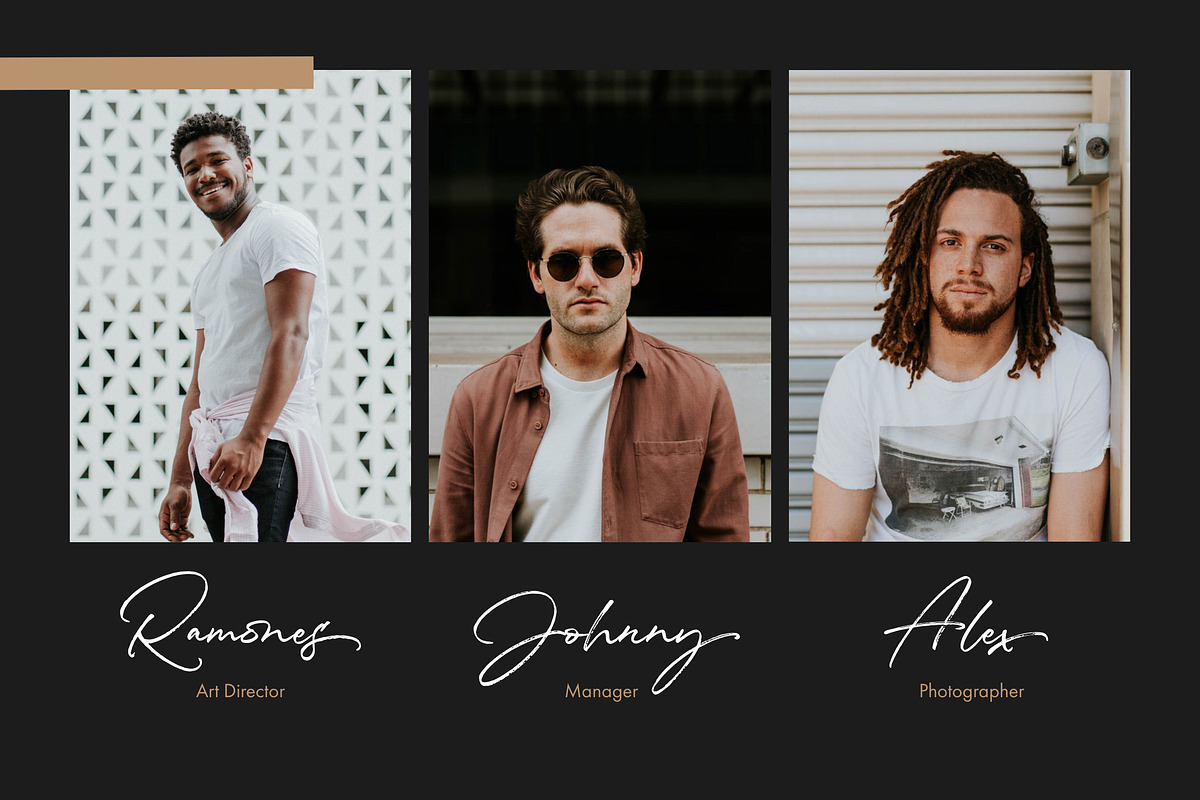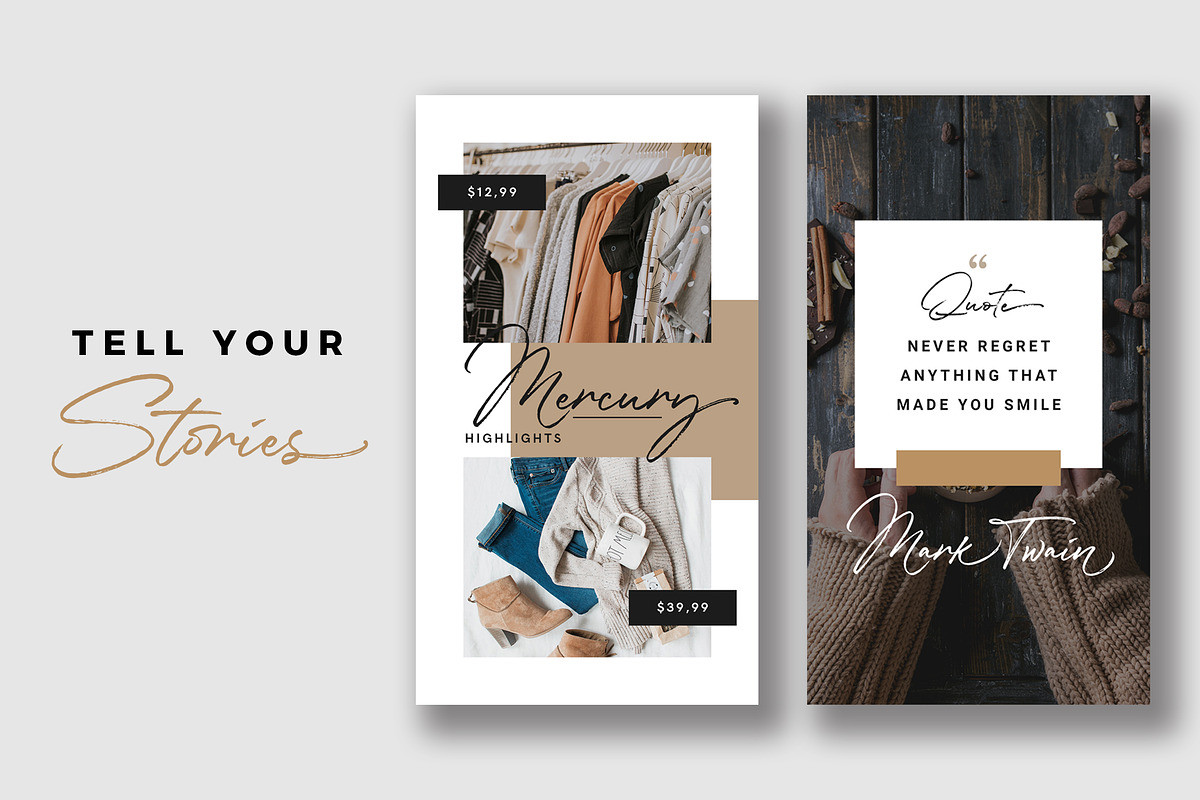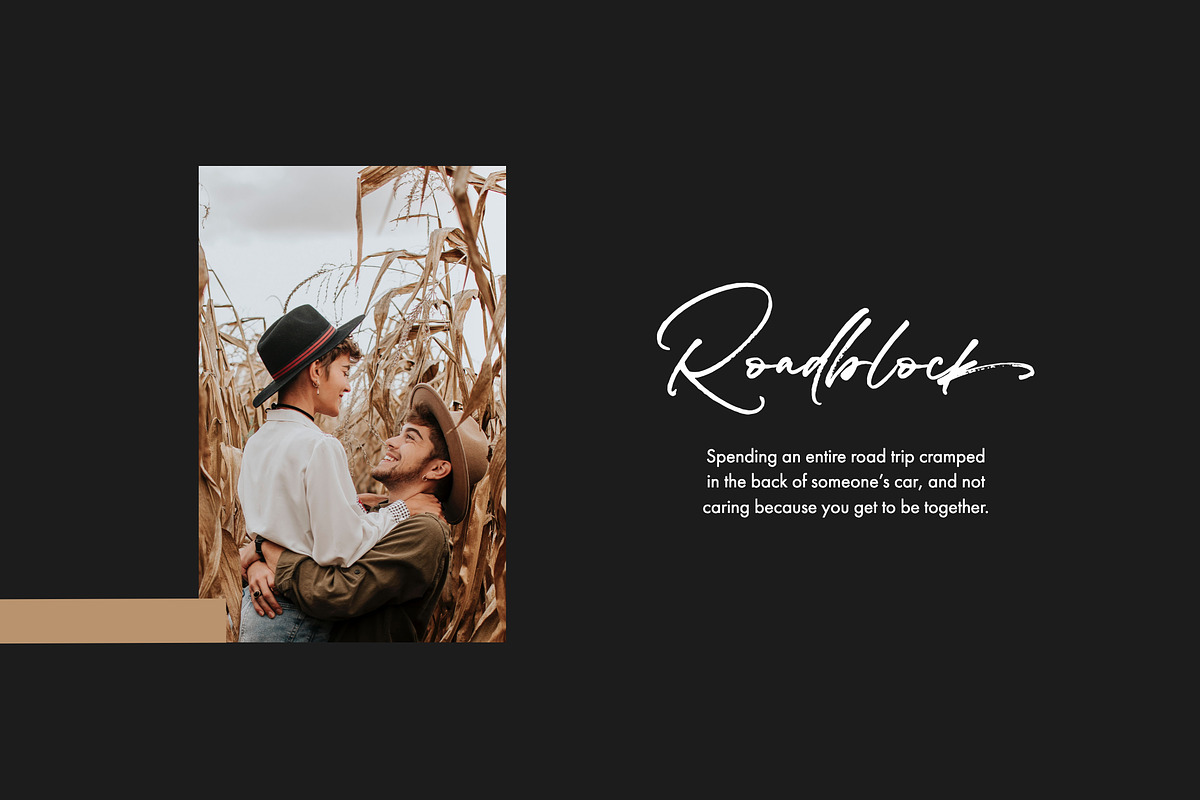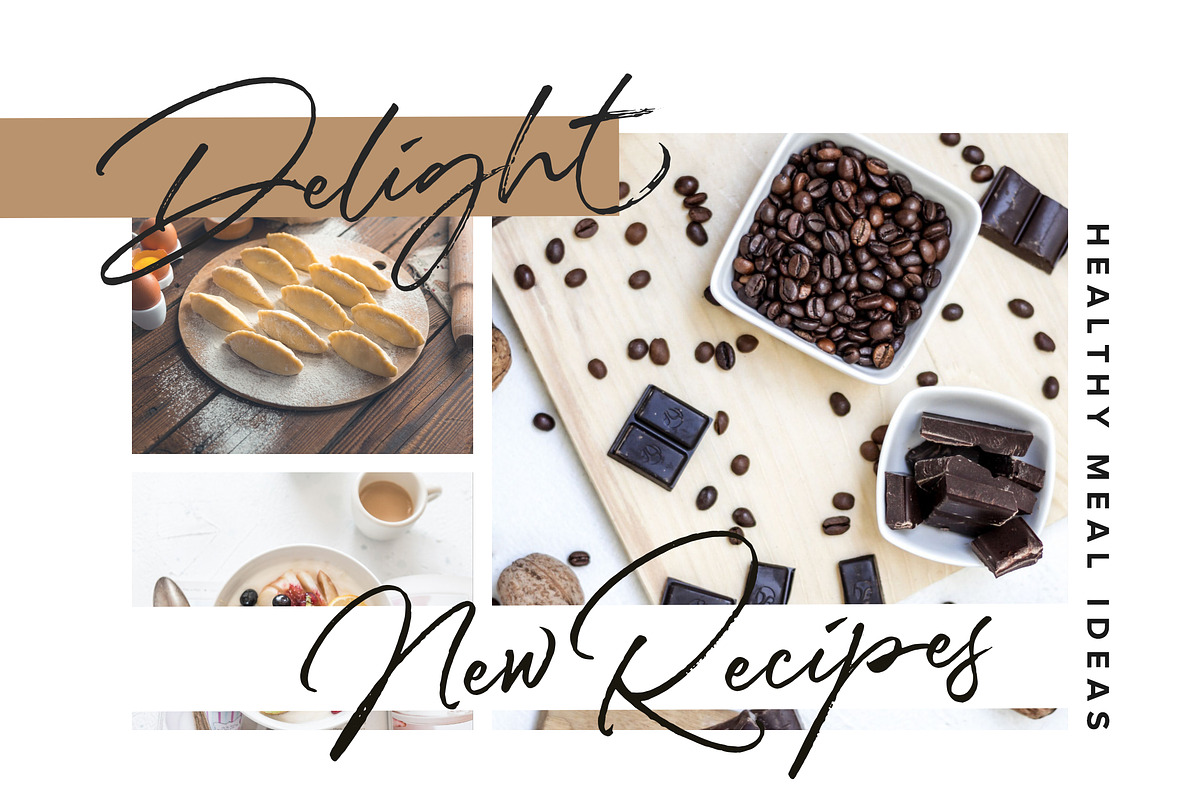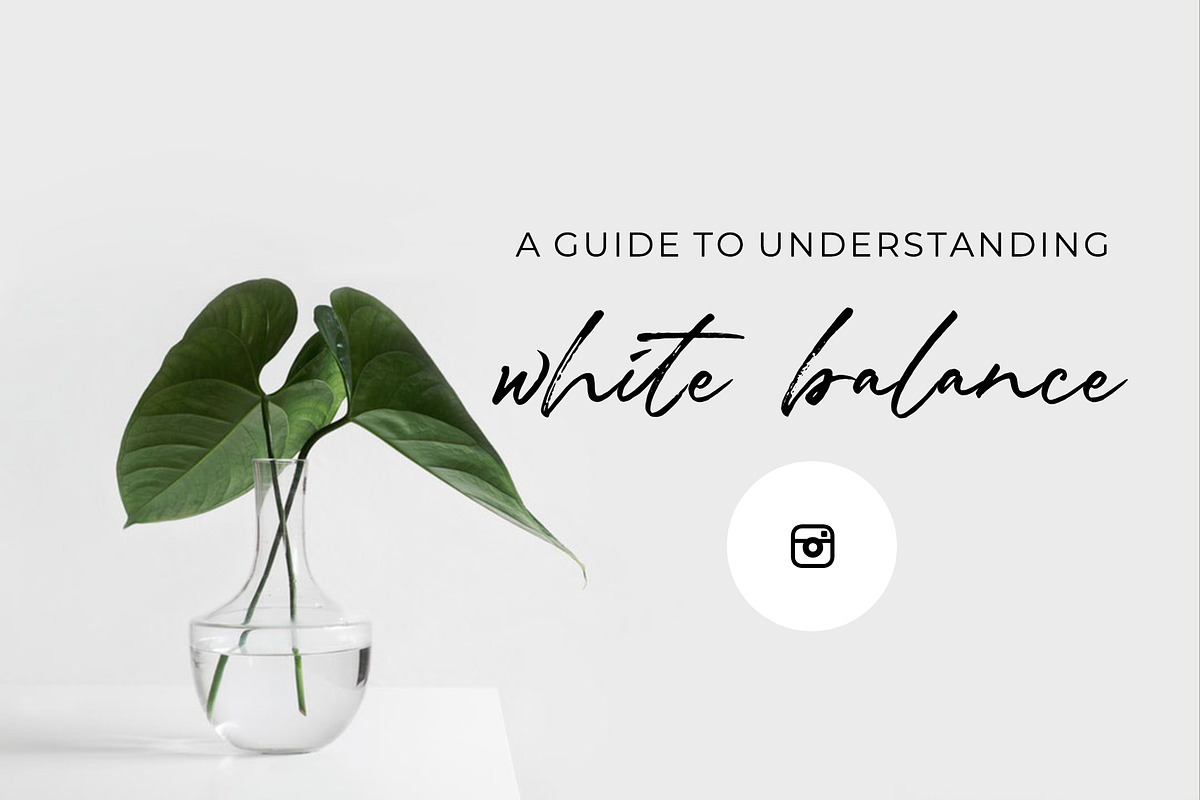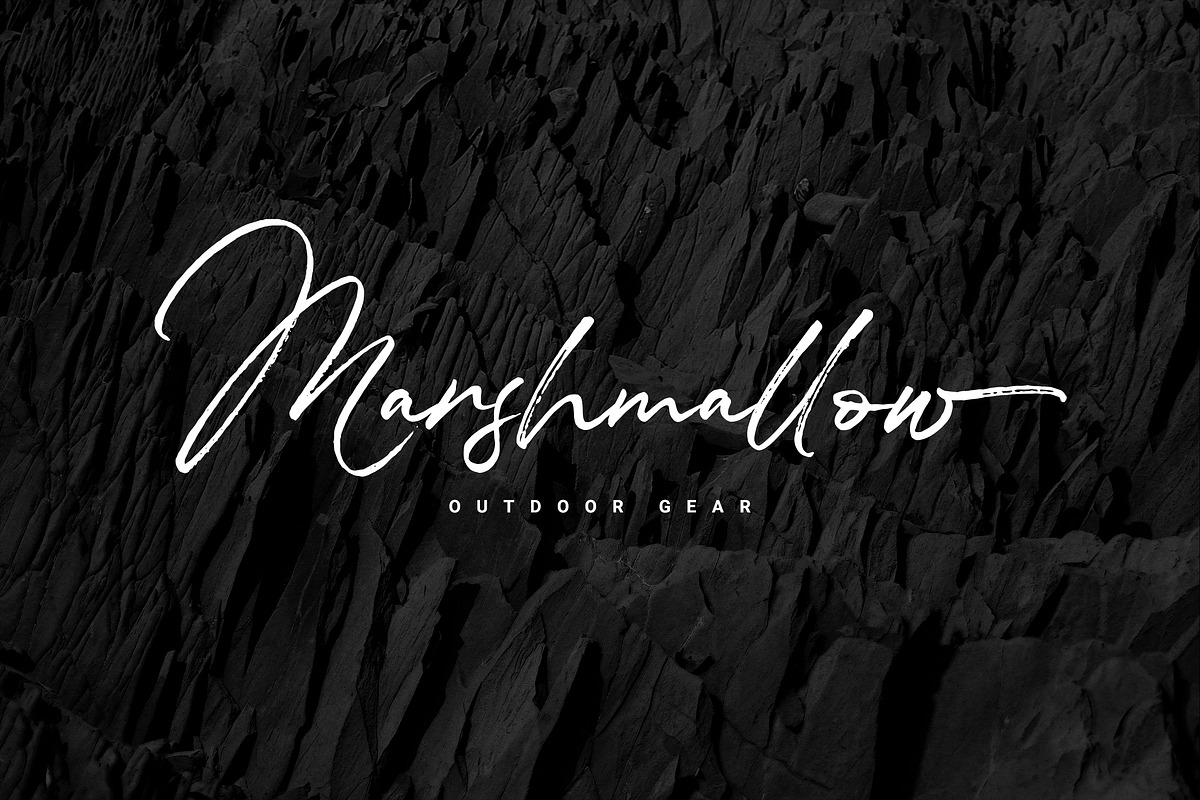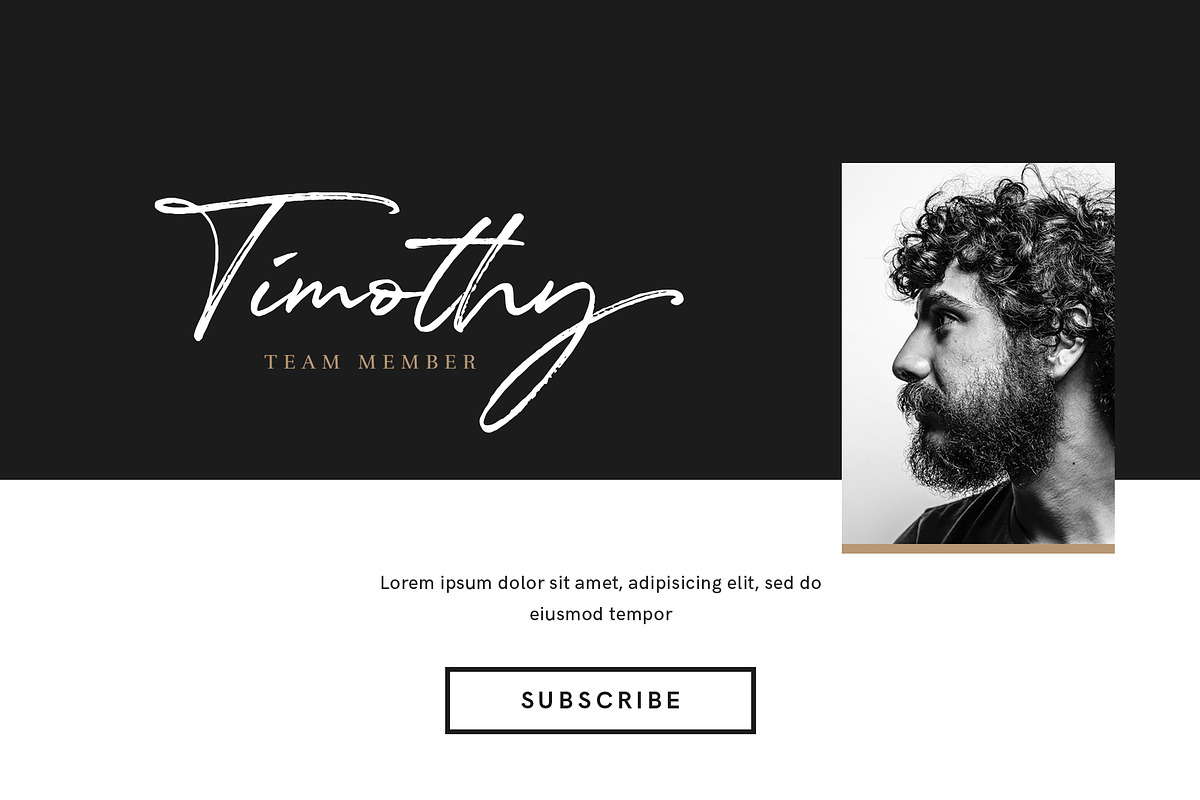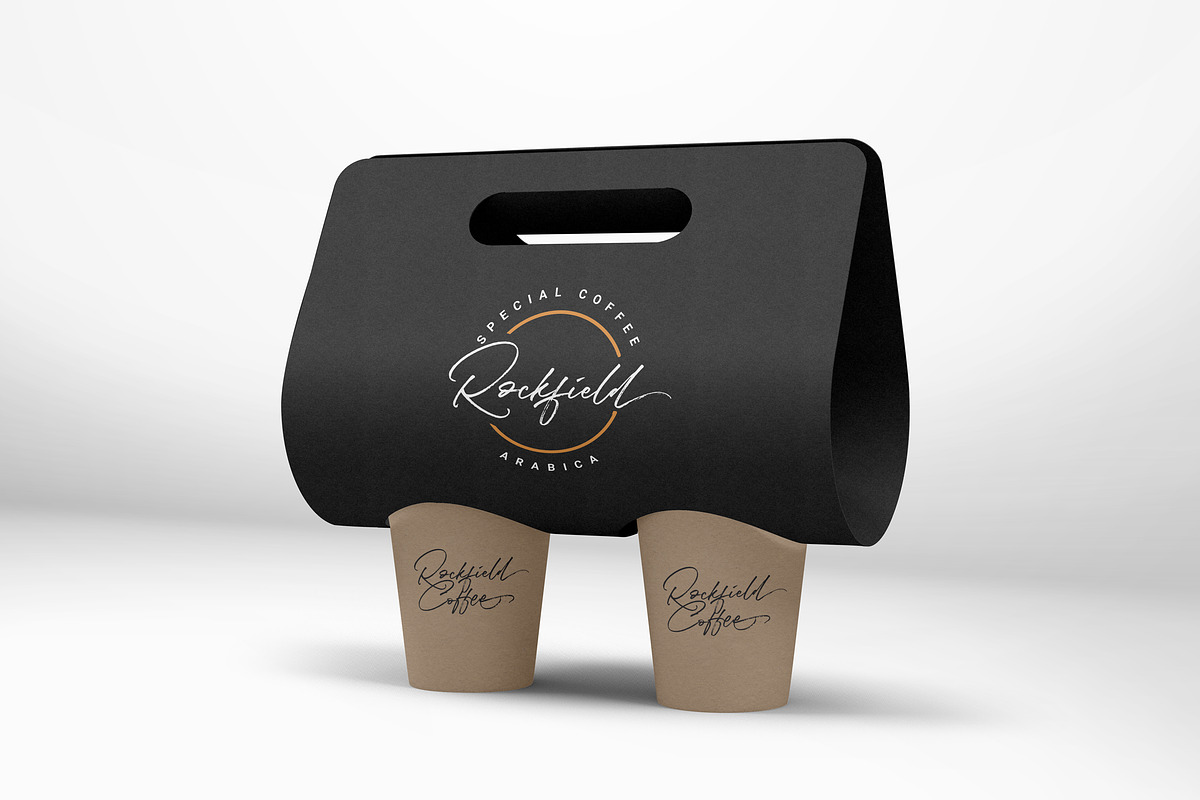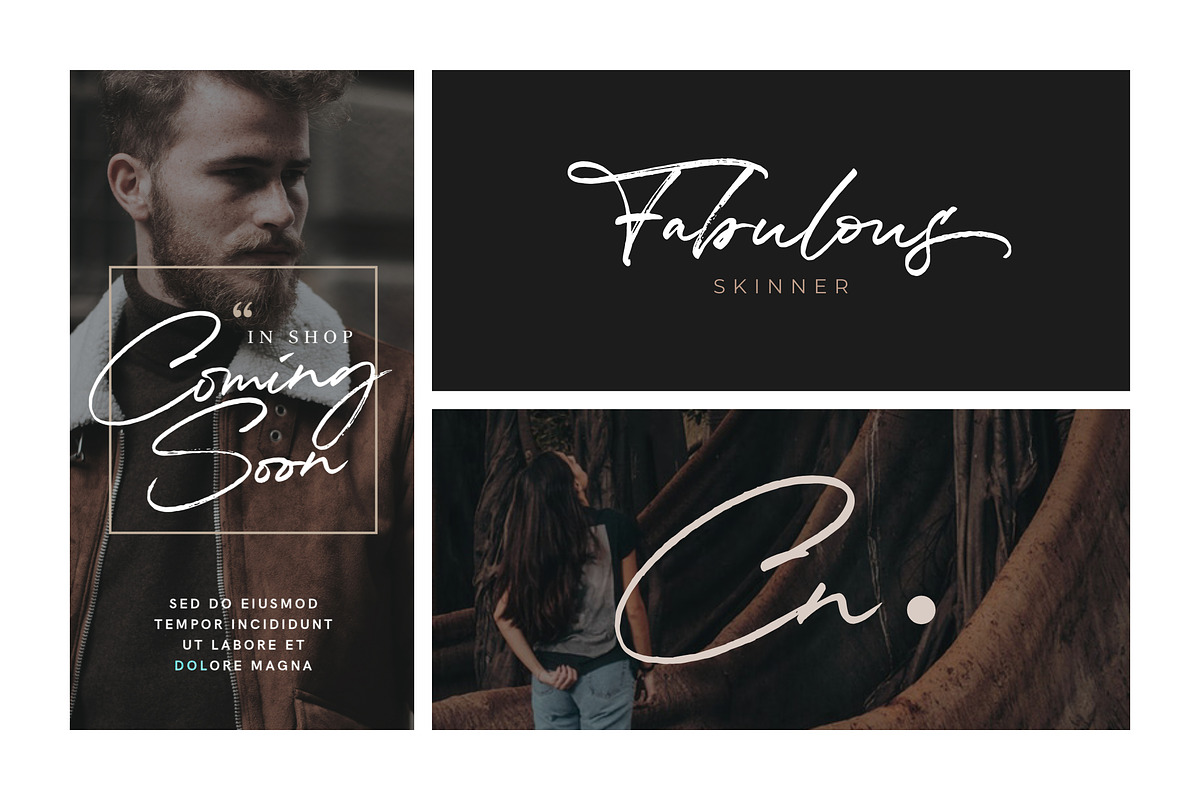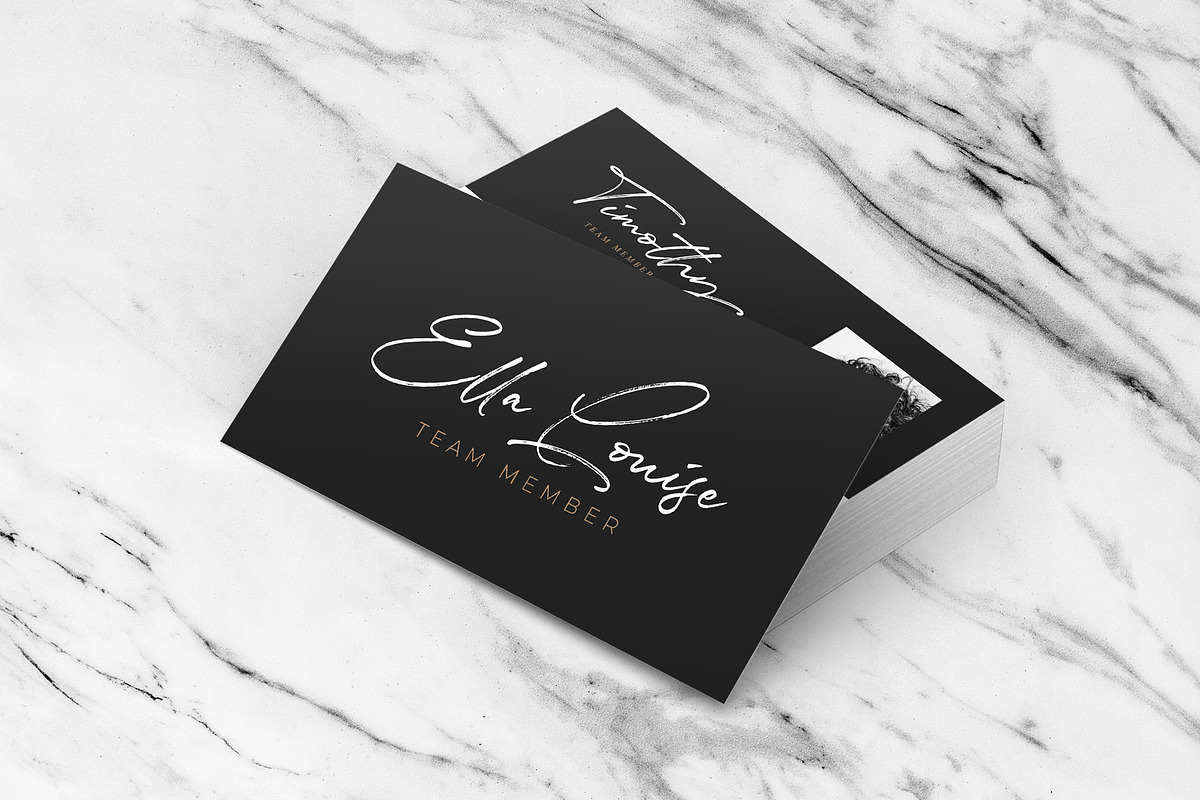
Melodiously Script
Introducing
Melodiously Script is handwritten signature style font with stunning brush characters. Include OpenType alternates and common ligatures. Ideal for logos, name tag, handwritten quotes, product packaging, merchandise, social media & greeting cards.
Try the alternates and ligatures to give your designs looks good, fresh, casual, stylish, and modern.